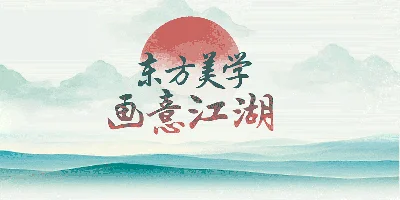
Hellofont ID Dan Mo Xing Kai Font
HelloFont ID Dan Mo Xing Kai Font
HelloFont ID Dan Mo Xing Kai Font is a stylish Chinese-inspired typeface that blends traditional brushstroke aesthetics with a modern, clean structure. Featuring smooth curves and balanced characters, this font is ideal for branding, product packaging, editorial design, cultural event materials, and invitations where both elegance and readability are important.
The HelloFont ID Dan Mo Xing Kai Font brings a sense of artistic charm with its graceful and sophisticated strokes, making it perfect for projects that require a blend of tradition and contemporary flair. It is suitable for designs that aim to convey both heritage and modernity in a visually appealing way.